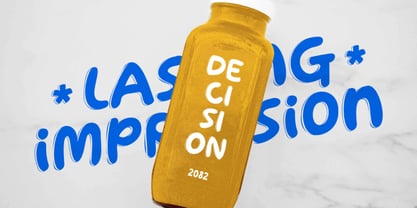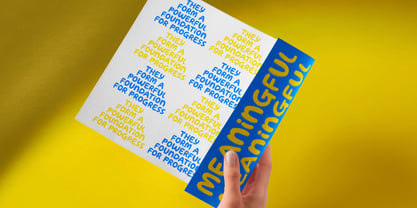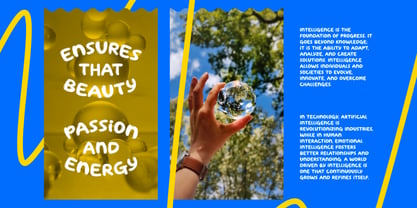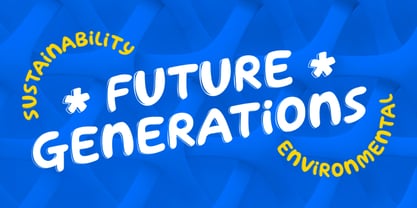
Ploofy
by Catalystco Std
The Ploofy Font Family was designed by and published by Catalystco Std. Ploofy contains 1 styles. More about this family
Ploofy Creative Bubble Typeface brings a cheerful and playful vibe to every design with its soft, inflated letterforms and rounded flow. Inspired by soap bubbles and cartoon aesthetics, it delivers a fun, friendly personality perfect for kids' branding, product packaging, or playful digital visuals. The combination of bold shapes and smooth outlines gives it a joyful, dynamic rhythm on any layout. Includes uppercase and lowercase letters, numerals, and punctuation. Ploofy infuses every project with a sense of fun and creativity, making it stand out in colorful, expressive compositions.